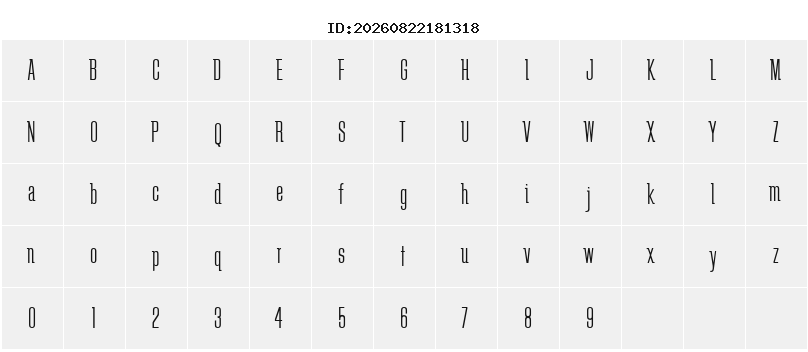
SchindlerLight Preview
• Font Name: SchindlerLight
• Font Style: Roman
• Full Font Name: SchindlerLight
About SchindlerLight.ttf
SchindlerLight.ttf is a modern, elegant sans-serif font designed for ultimate readability and visual harmony. Perfect for branding, headlines, web design, and print materials.